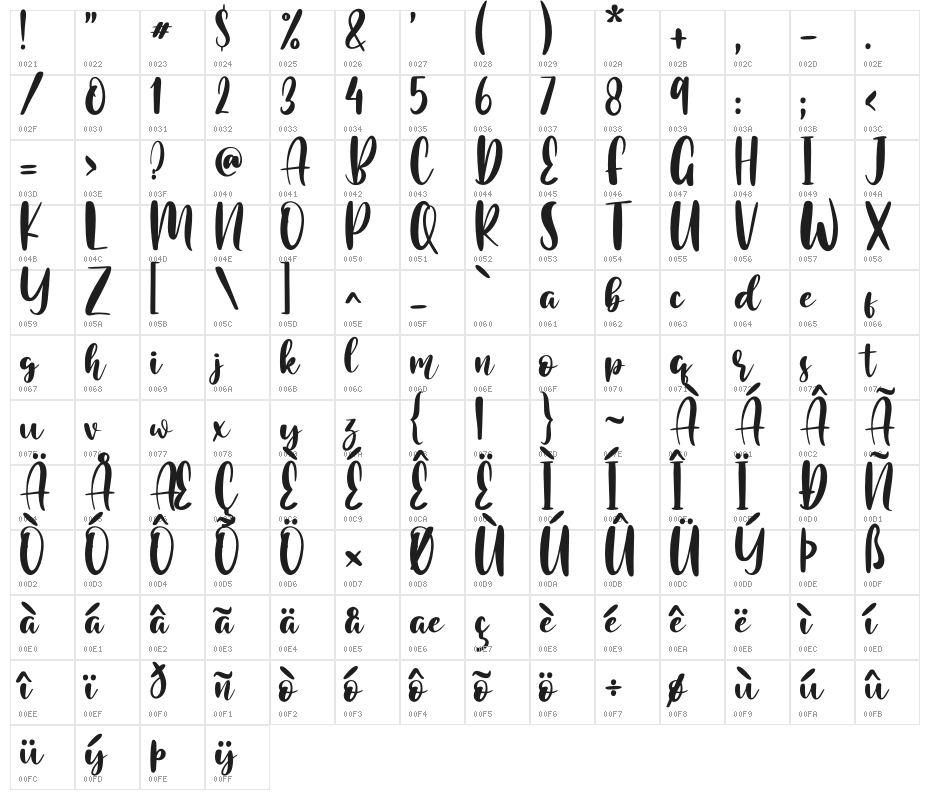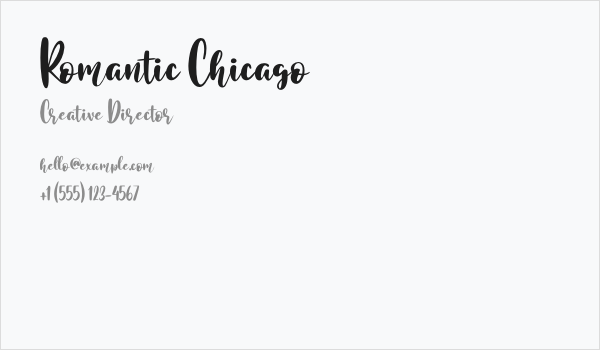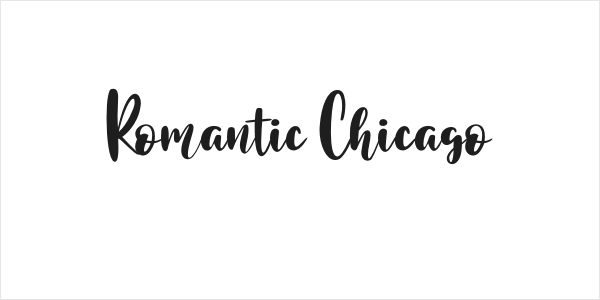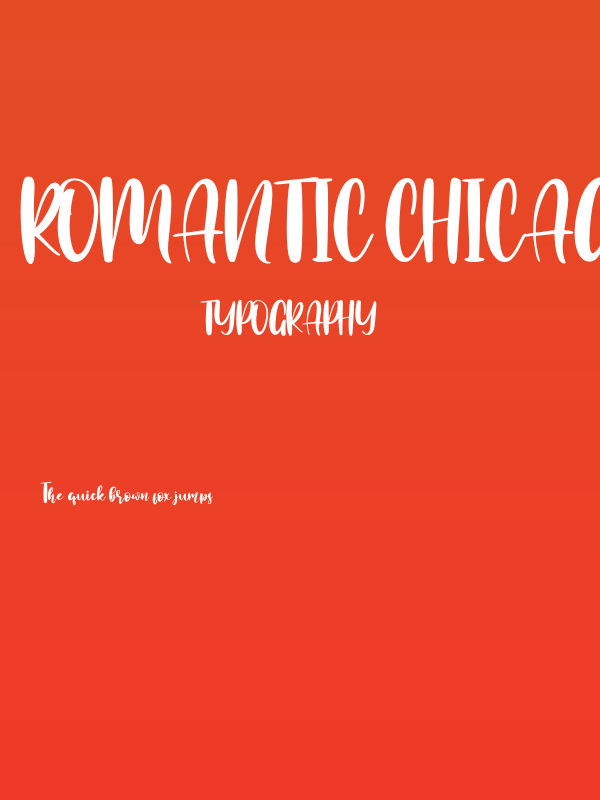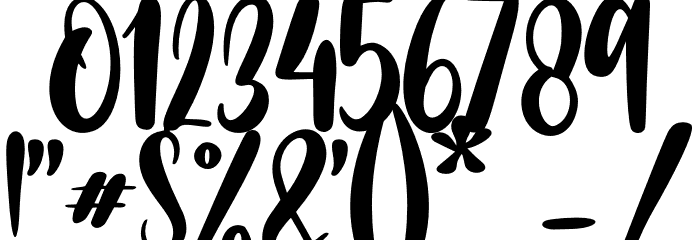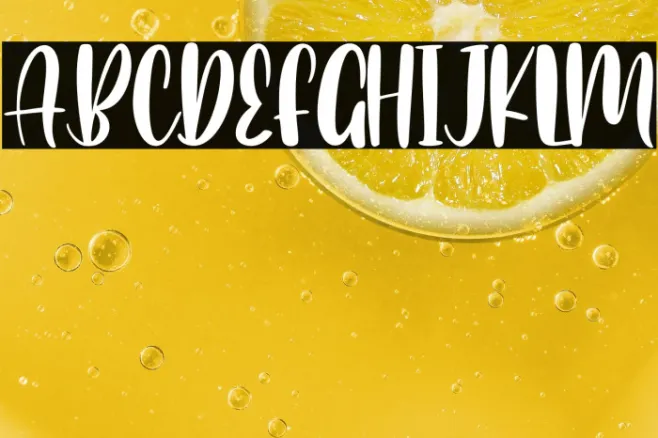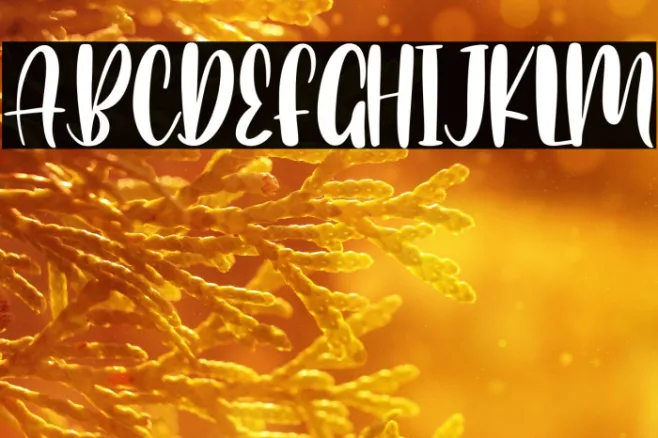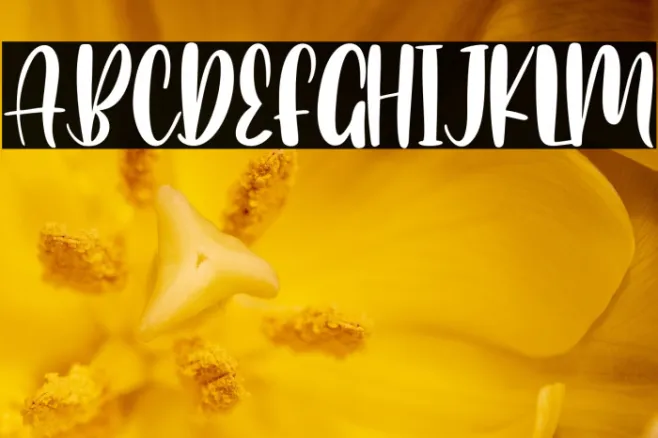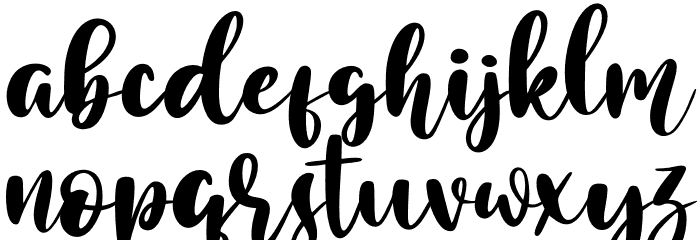
Romantic Chicago Font
Romantic Chicago Description
This font exudes a playful and romantic charm with its flowing, cursive style. The letters are crafted with a smooth, handwritten touch, giving them a personal and intimate feel. The uppercase letters are bold and slightly elongated, while the lowercase letters maintain a consistent flow, enhancing readability. The numbers and special characters are designed to match the overall aesthetic, with a whimsical flair that complements the alphabet. This font is perfect for projects that require a touch of elegance and warmth, such as wedding invitations, greeting cards, or personal branding.
| Overall Style | Romantic |
| Use Case | Headlines, Invitations, Personal Branding |
| Proposed Projects | Ideal for wedding invitations, greeting cards, personal branding, and romantic-themed designs. |